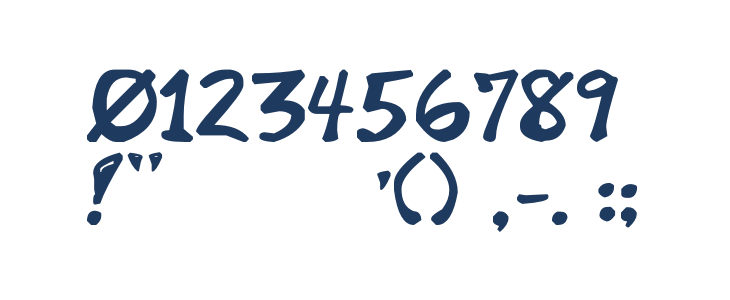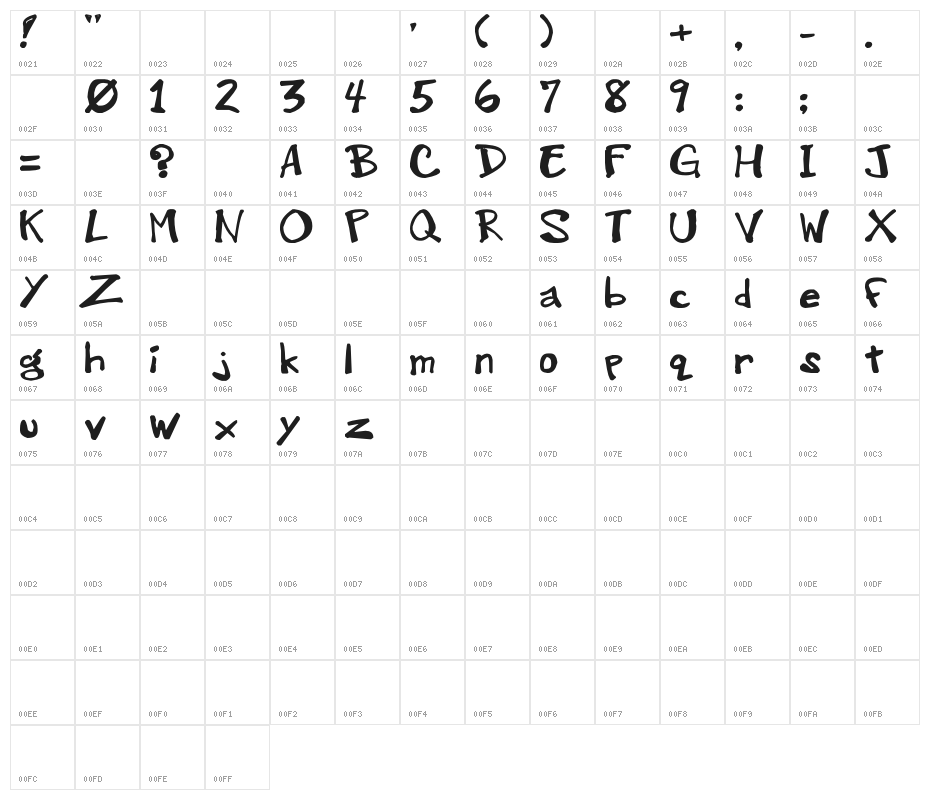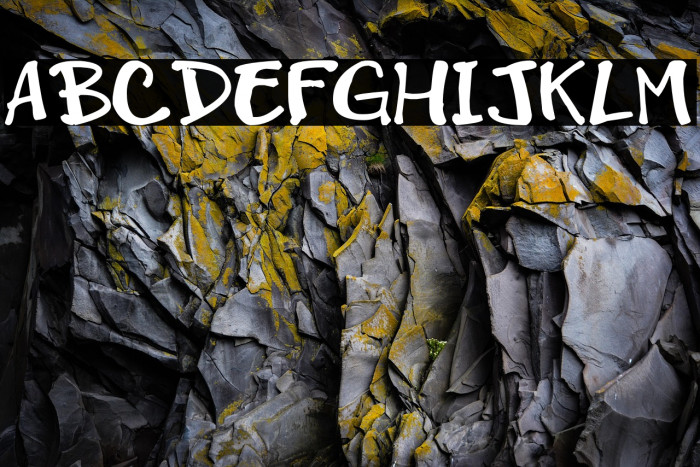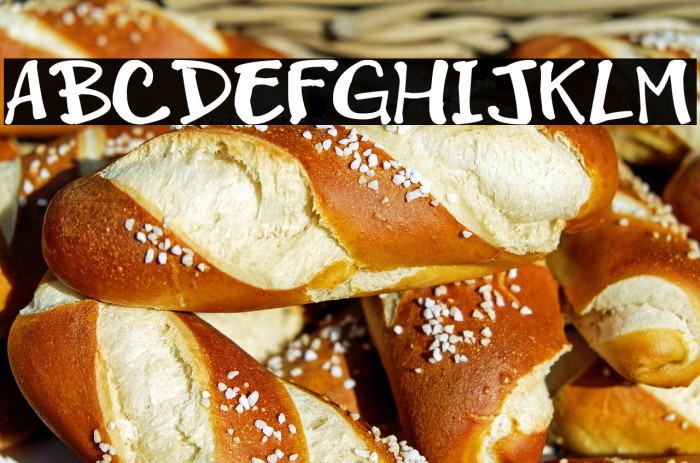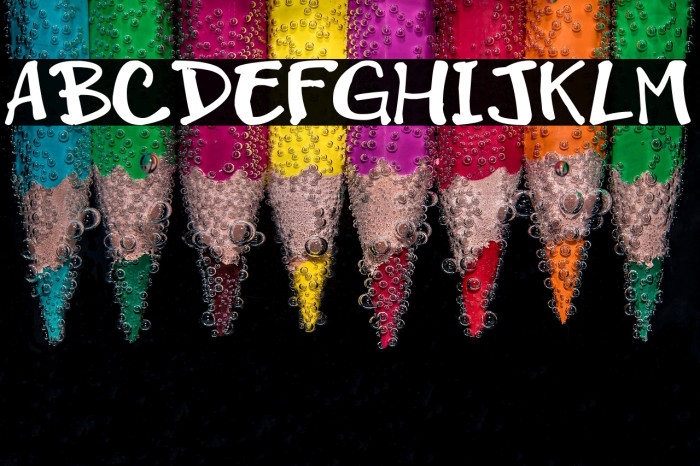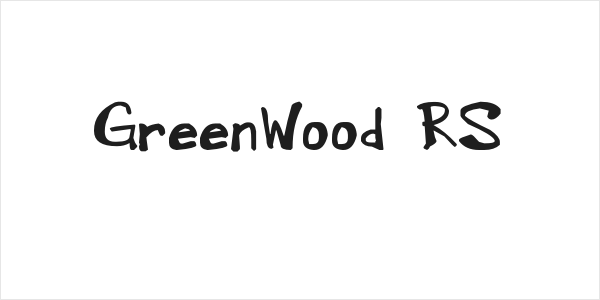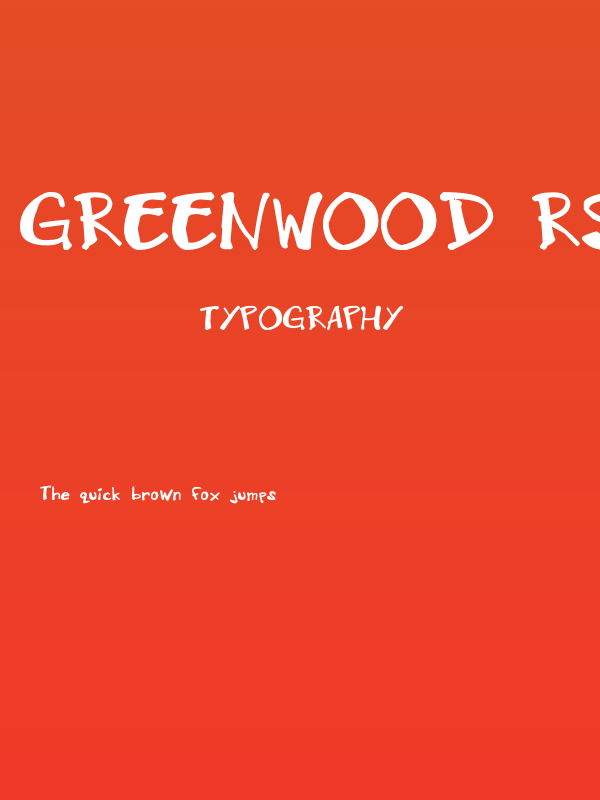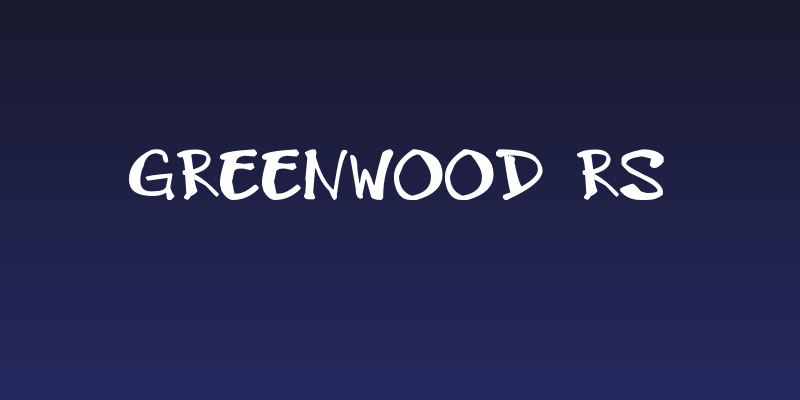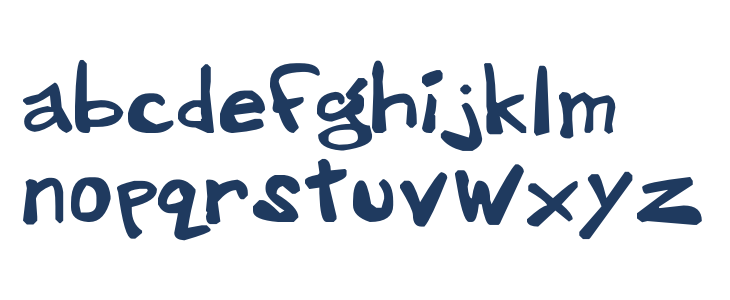
GreenWood_RS Font
GreenWood_RS Description
This font features a playful and informal handwritten style, characterized by its bold and uneven strokes. The letters have a casual, almost whimsical appearance, with varying thickness that adds a dynamic and lively feel. The uppercase and lowercase letters maintain a consistent style, with rounded edges and a slightly irregular baseline, enhancing the font's approachable and friendly vibe. The numerals and special characters follow the same design principles, ensuring a cohesive look across all elements. This font's unique personality makes it stand out, perfect for projects that require a touch of creativity and fun.